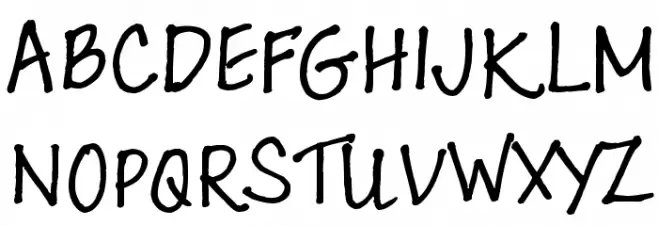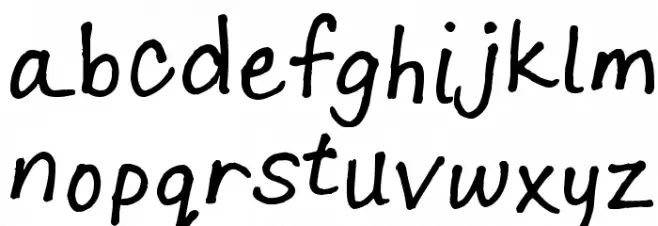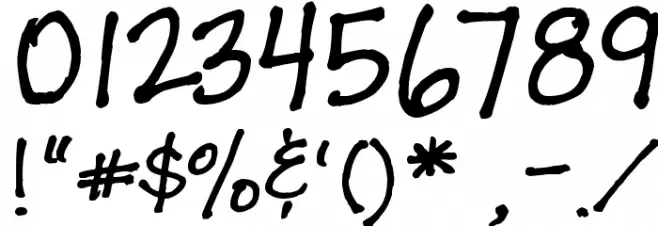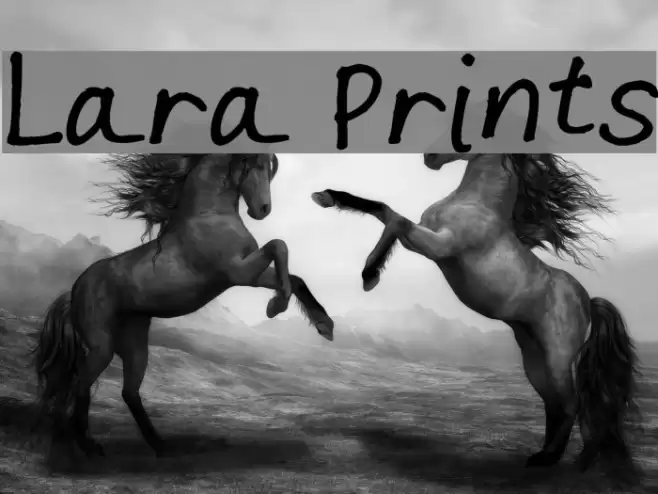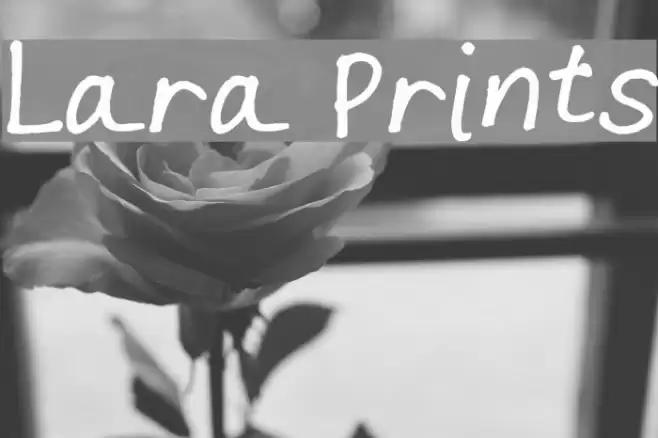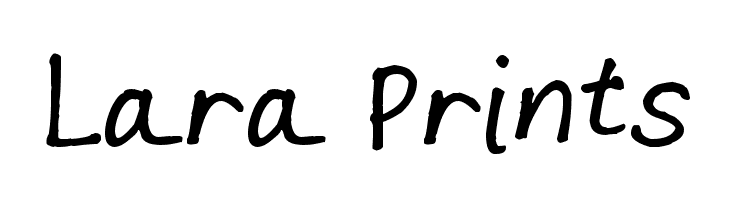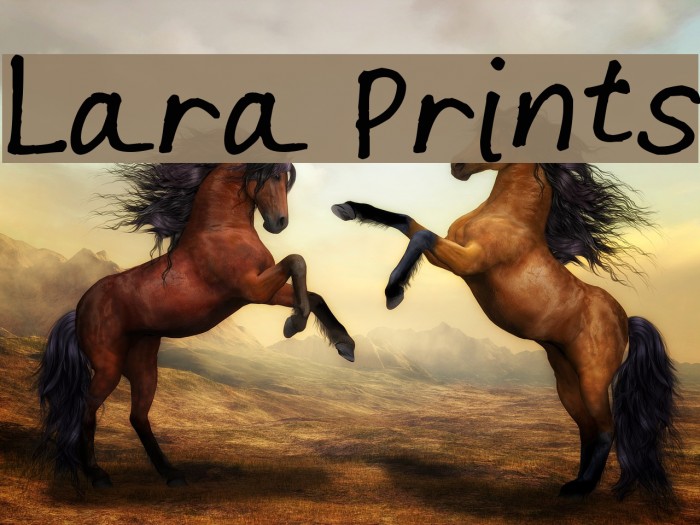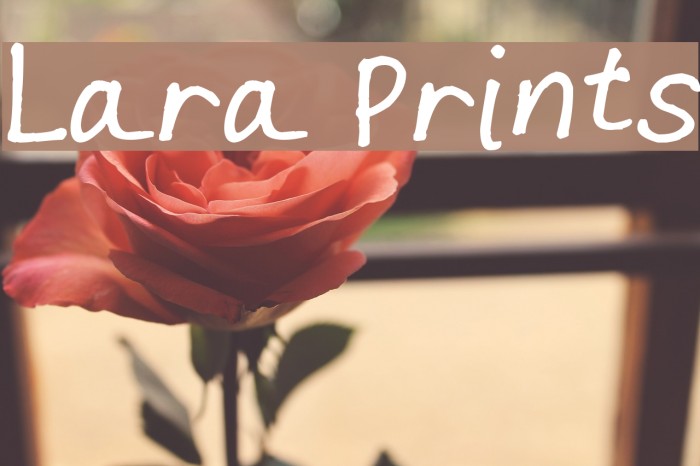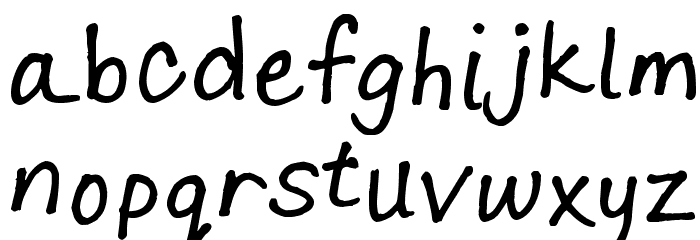
Lara Prints
This font features a playful and casual handwritten style, characterized by its irregular and organic letterforms. The strokes are uneven, giving it a natural and authentic feel, reminiscent of a personal note or a doodle. The uppercase and lowercase letters maintain a consistent style, with rounded edges and a slightly tilted orientation, adding to its informal charm. The numerals and special characters follow the same aesthetic, ensuring a cohesive look across all text. This font's unique personality makes it stand out, perfect for projects that require a touch of whimsy and creativity.
A playful, casual handwritten font with irregular, organic letterforms.
- Proposed Projects: Ideal for greeting cards, children's books, personal blogs, and creative branding.
- Overall Style: Casual
- Use Case: Headlines, Informal text, Creative projects